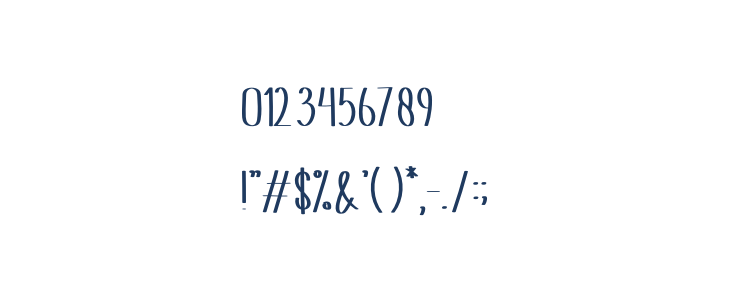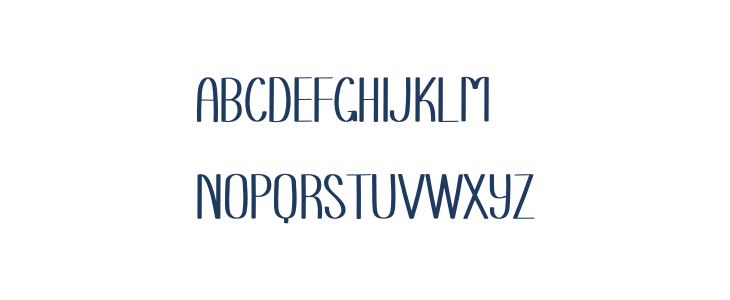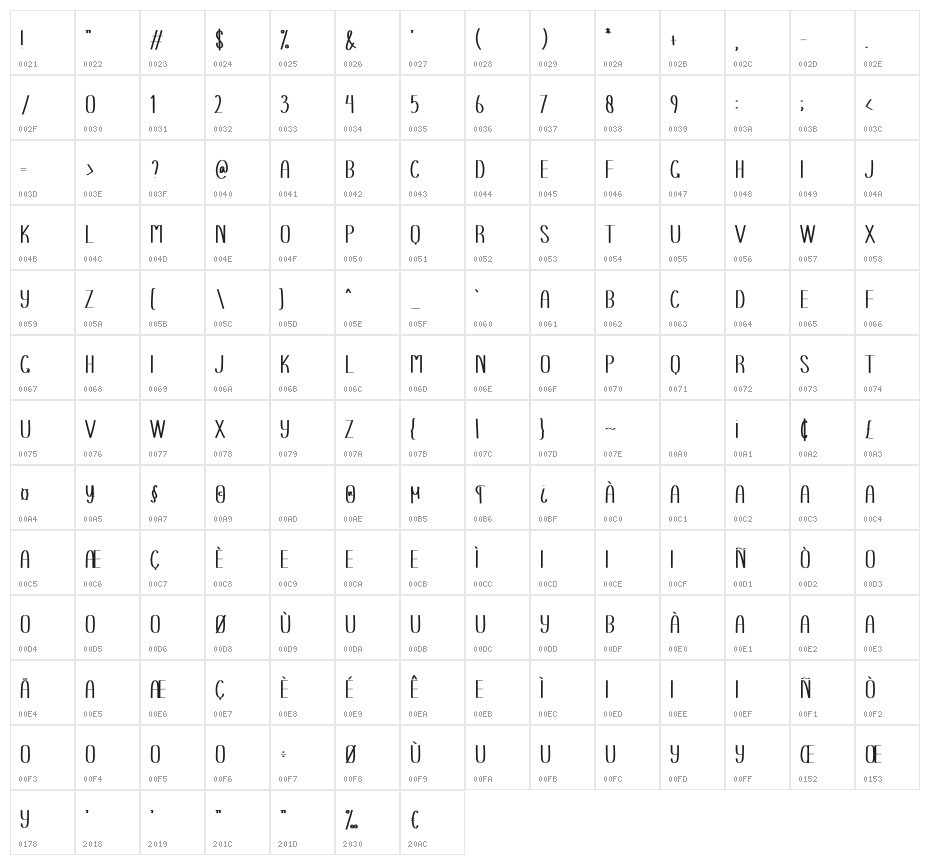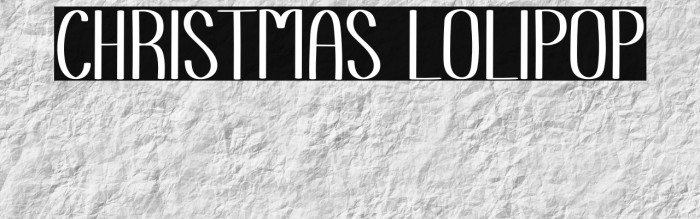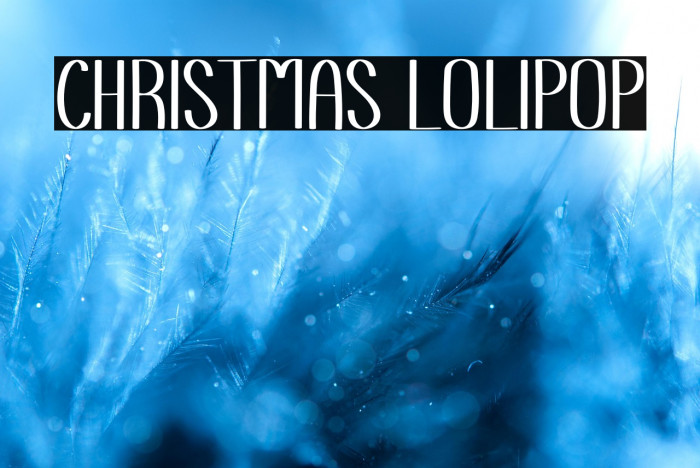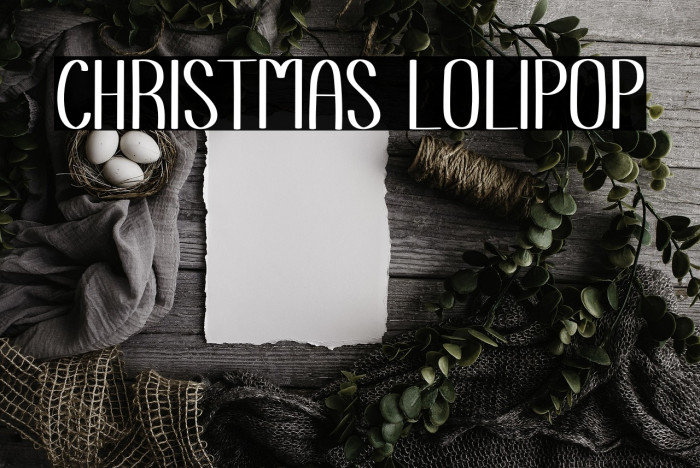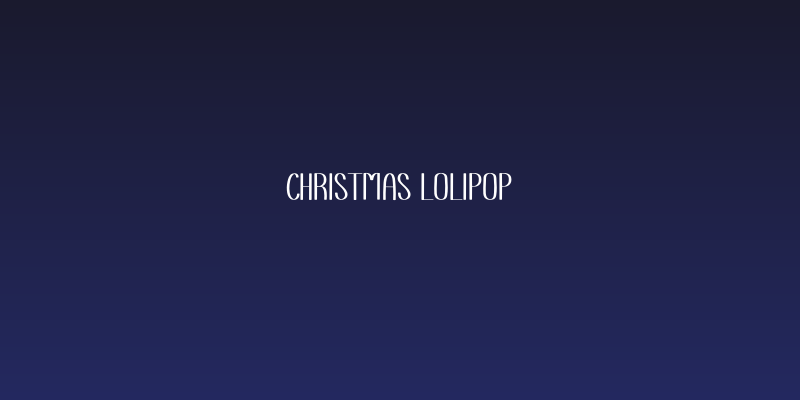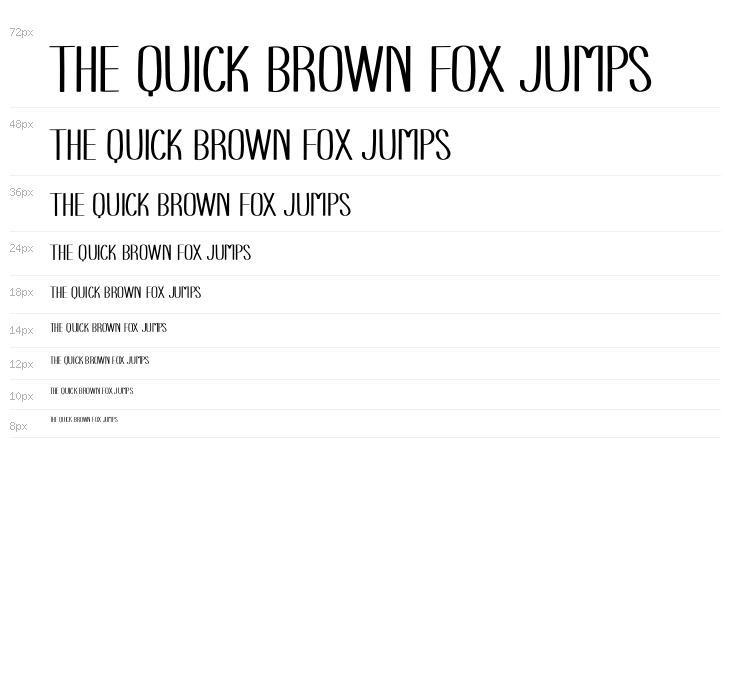
Christmas Lolipop Font
Christmas Lolipop Description
A playful, tall, and narrow sans-serif font with rounded terminals and whimsical, slightly irregular stroke widths, giving it a festive and informal appearance. The characters are vertically elongated with consistent spacing and a friendly vibe.
| Overall Style | Decorative, Playful, Modern |
| Use Case | Headlines, Posters, Greeting cards, Logos |
| Proposed Projects | Holiday cards, party invitations, children's event posters, playful branding, seasonal packaging. |